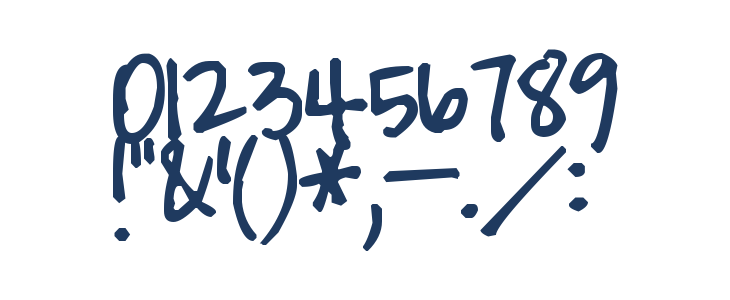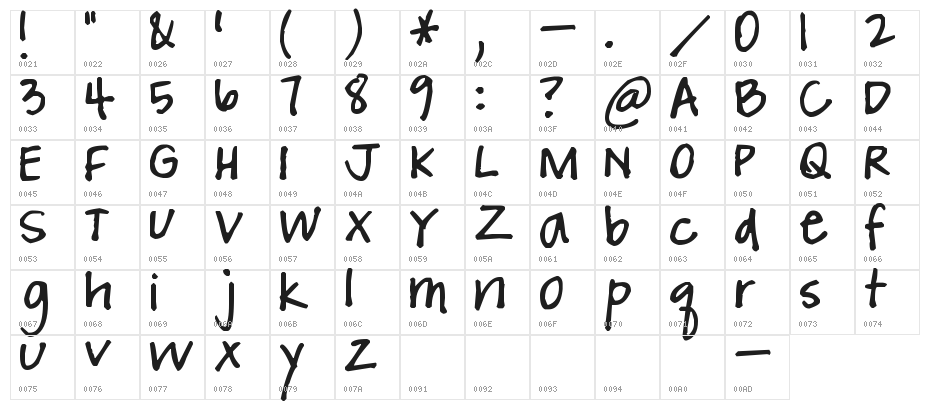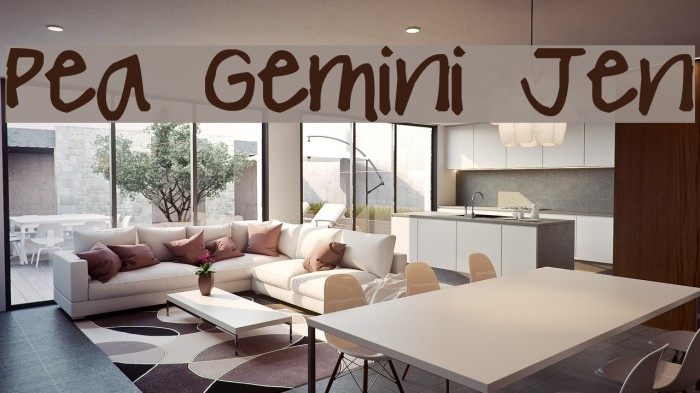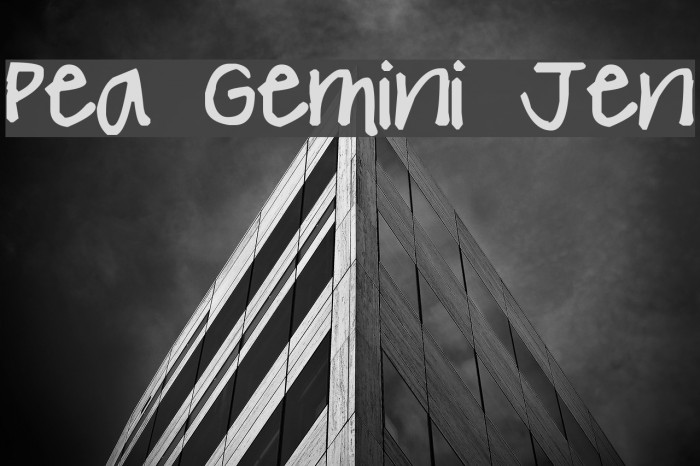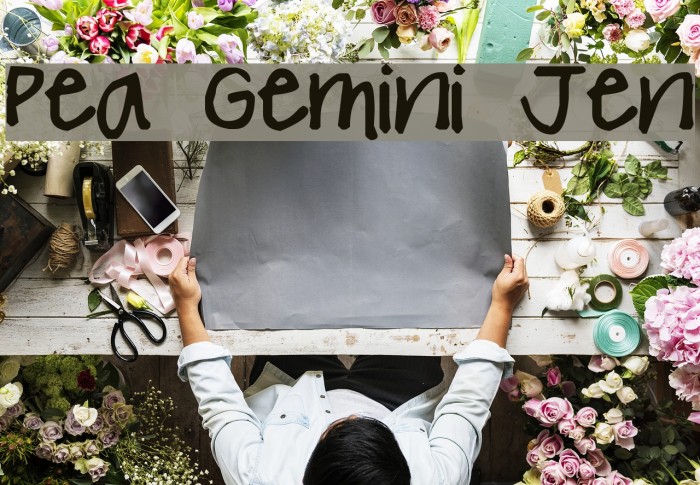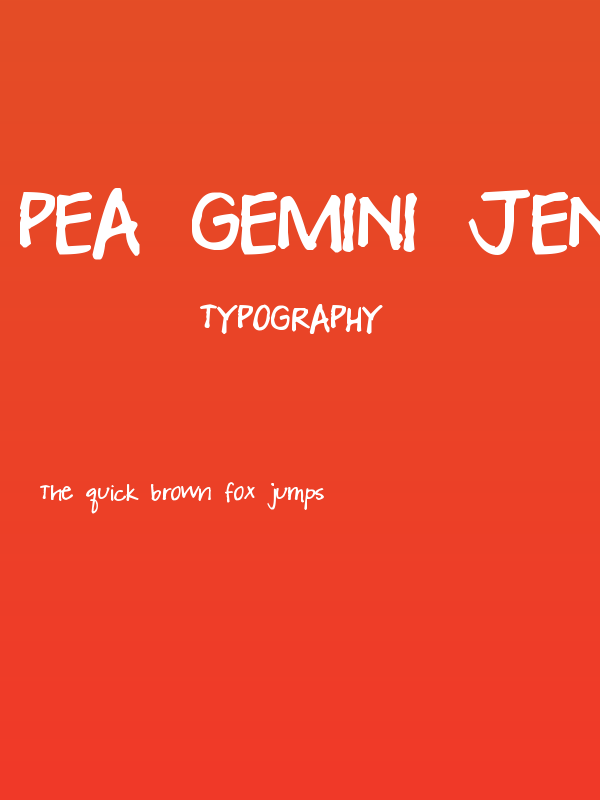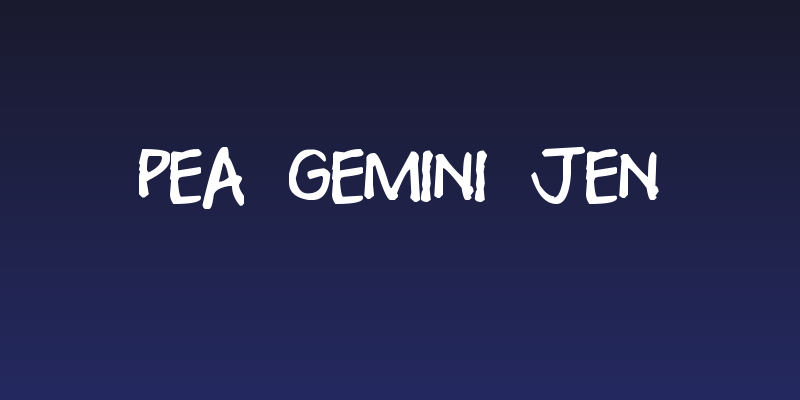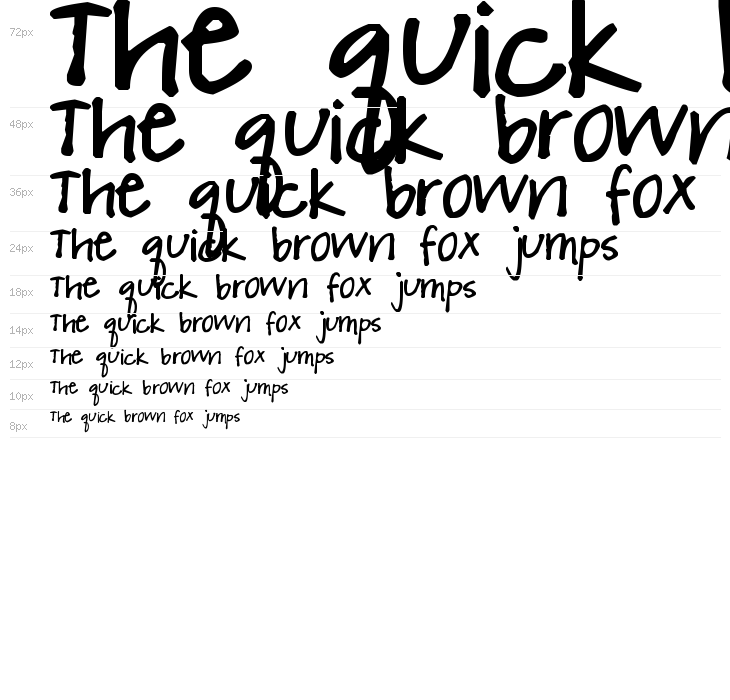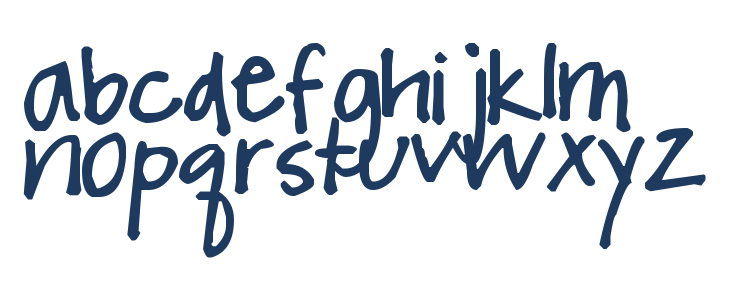
Pea Gemini Jen Font
Pea Gemini Jen Description
This font features a playful and casual handwritten style, characterized by its bold and slightly irregular strokes. The uppercase letters are prominent and expressive, while the lowercase letters maintain a consistent flow with a touch of whimsy. Numbers and special characters are crafted with the same lively energy, making them stand out. The overall appearance is informal and friendly, suitable for projects that require a personal touch. Its unique style is perfect for capturing attention and conveying a sense of fun and creativity.
| Overall Style | Playful, Casual |
| Proposed Projects | Ideal for greeting cards, children's books, playful branding, and creative social media graphics. |